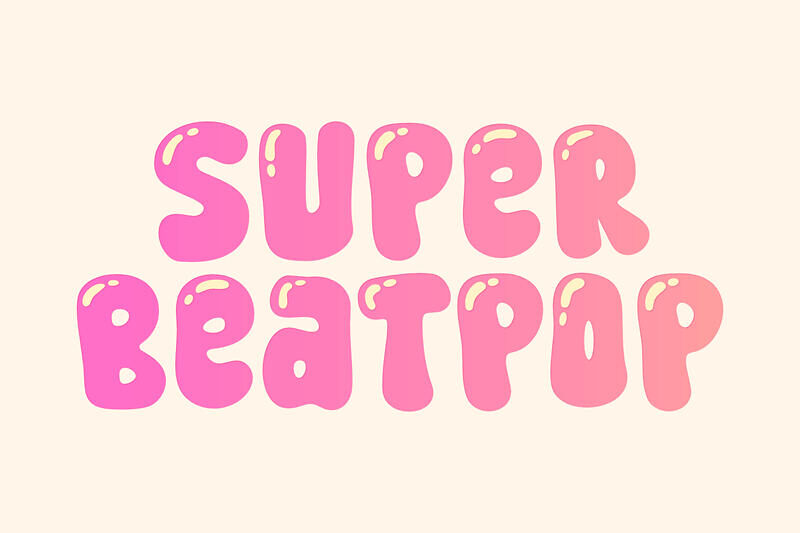
Super Beatpop Font
Super Beatpop is a playful, cartoon-style display font with bold, rounded shapes and a lively, pop-inspired feel. Designed for eye-catching visuals, it works well in posters, kids’ designs, and fun branding.
Its exaggerated letterforms add personality and energy, making text stand out instantly. The font includes a wide glyph set and is free for both personal and commercial use.